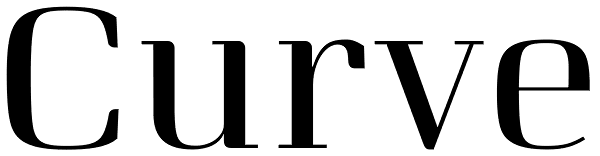
Curve
Curve is a modern neo-classical typeface family with some features of the Didone genre, but especially designed for contemporary typography. A large x-height not only creates space in the letters for extra-bold styles, but also lends Curve an open...